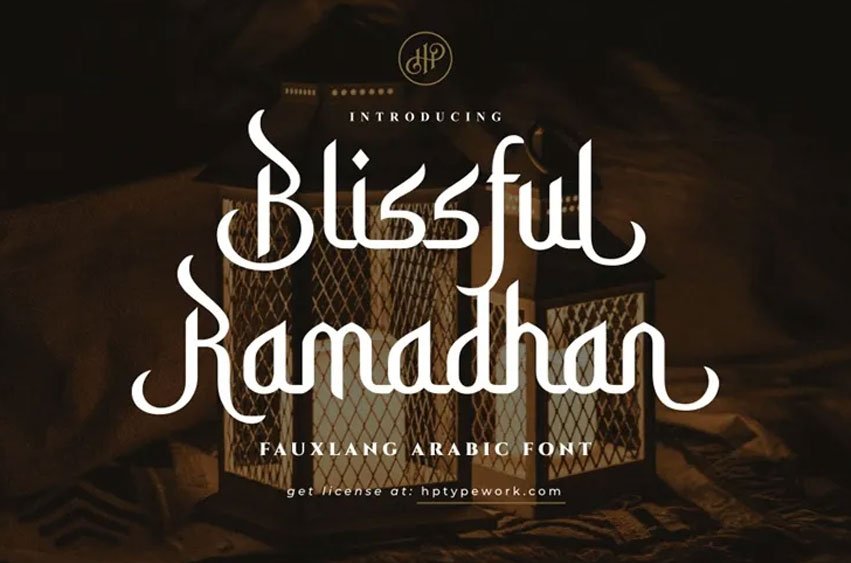
Blissful Ramadhan Font
Blissful Ramadhan Font is high quality Arabic font created by HPTypework and given for free personal use. Thoughtfully designed for style and clarity, it offers a solid foundation for cultural and creative projects.
The free version comes with a full set of lowercase and uppercase characters along with some special symbols. This makes it an accessible and practical choice for creatives looking for a well-designed Arabic font with a reliable and clean character set.